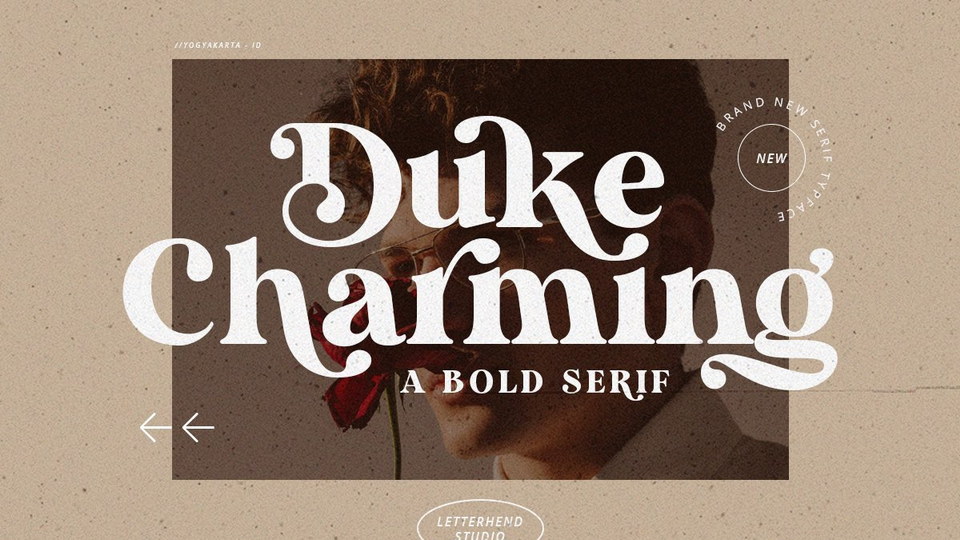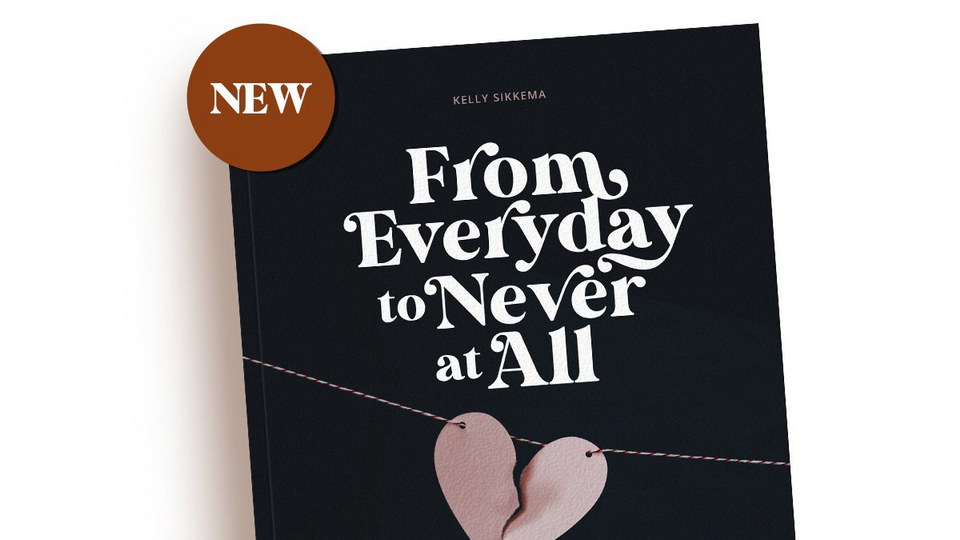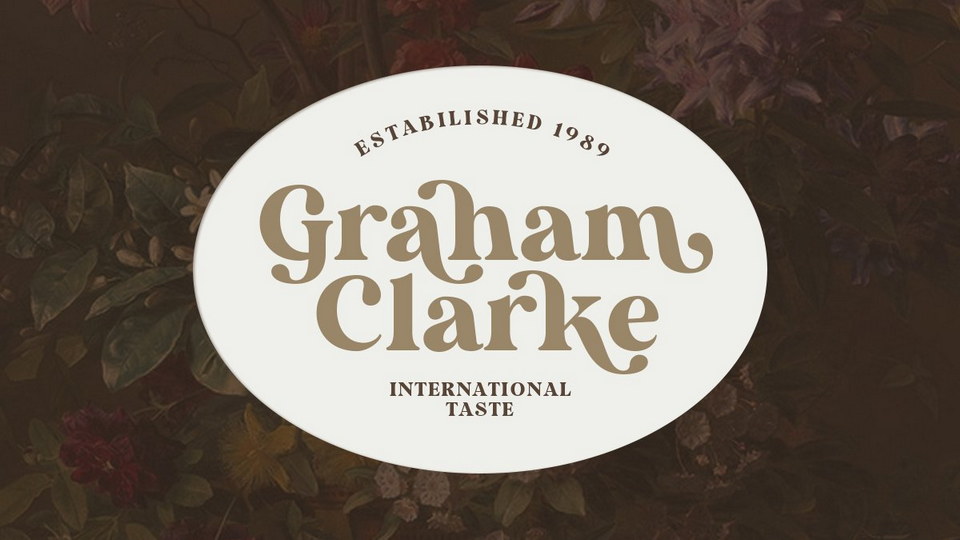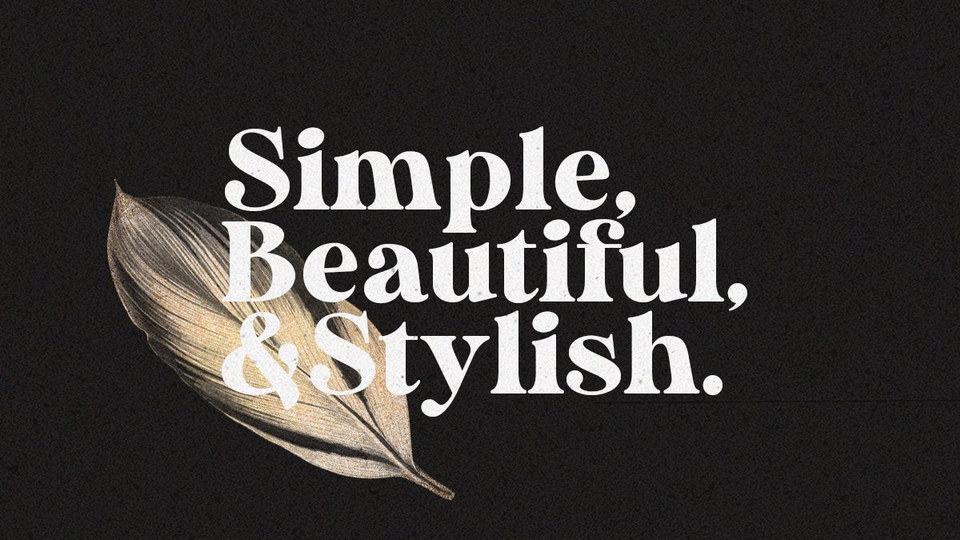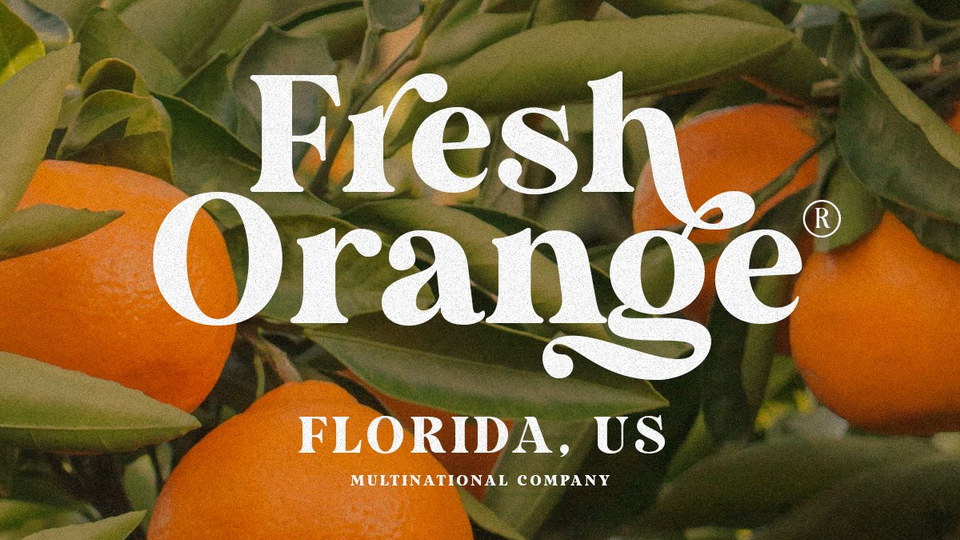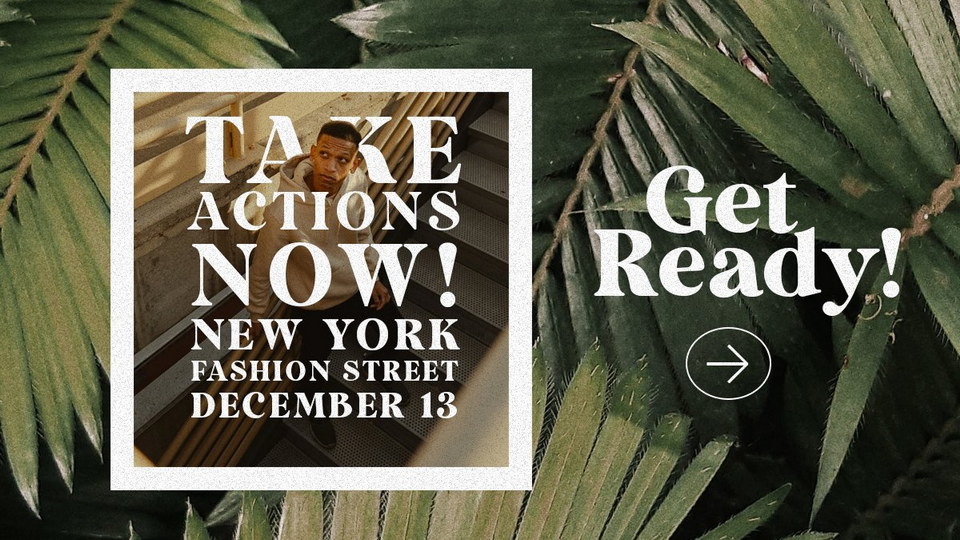
Duke Charming is a modern semi bold serif typeface carefully made to make sure its quality. This font perfectly made to be applied in logo, and the other various formal forms such as invitations, labels, logos, magazines, books, greeting / wedding cards, packaging, fashion, make up, stationery, novels, labels or any type of advertising purpose.